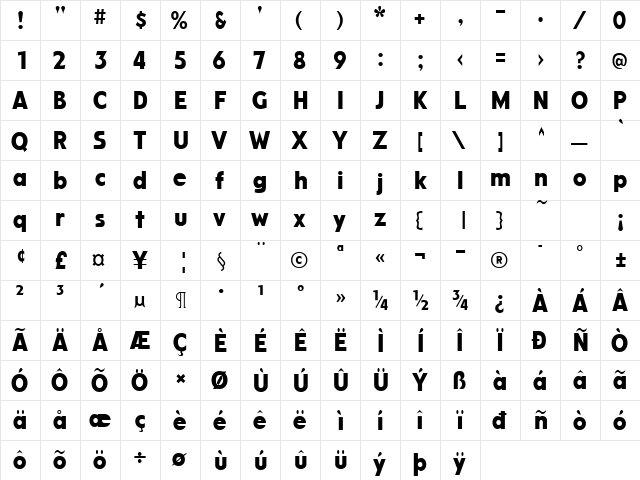
KolkmanBold Regular
Design Context for KolkmanBold Typeface
KolkmanBold takes a measured approach to typography — its balanced proportions and neutral character make it a reliable workhorse for both digital and print work. The heavy weight commands attention and anchors typographic hierarchies.